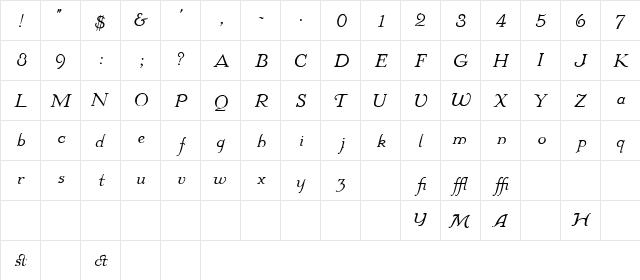
Colwell Italic HPLHS
Design Context for Colwell Italic Typeface
Colwell Italic takes a measured approach to typography — its balanced proportions and neutral character make it a reliable workhorse for both digital and print work. Its italic angle brings a sense of urgency and motion to the letterforms.
Pro Tip: Use Colwell Italic for emphasis, pull quotes, and subheadings where its slanted energy can add rhythm to the layout.